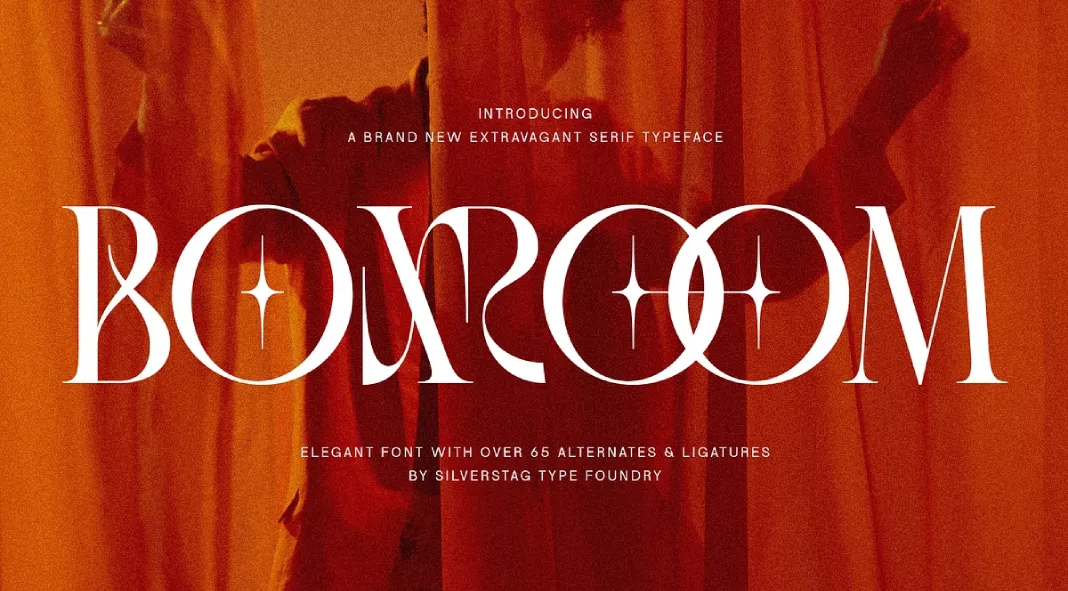
BOXROOM: A Typeface with Character
Designed and published by the SilverStag Type Foundry, BOXROOM isn’t just another typeface; it’s a work of art. BOXROOM presents a fresh take on serif fonts, capturing a blend of vintage charm and modern edge. Its striking design elevates typography to a new level, offering designers a tool that promises sophistication and versatility. From expressive details to adaptable applications, BOXROOM emerges as a powerful asset for any design project.
Design and Aesthetic Appeal
Expressive and Bold BOXROOM commands attention with its extended, angular serifs that exude both elegance and boldness. The meticulously designed decorative elements, especially on letters like O, Q, E, and F, feel like hidden treasures within the font. These tiny adornments transform BOXROOM from a standard serif into a typeface brimming with character and surprise, adding flair and depth to each word.
A Fusion of Classic and Contemporary SilverStag’s BOXROOM straddles two worlds: it hints at vintage typography while maintaining a distinctly modern edge. This duality makes it adaptable to a wide range of design contexts. Whether aiming for a timeless look or pushing the envelope in a contemporary project, BOXROOM delivers a sophisticated aesthetic that remains versatile across applications.
Functional Versatility
Customizable Typographic Experience One of BOXROOM’s standout features is its expansive range of ligatures and alternate characters, totaling over 65 options. This versatility enables designers to craft truly unique typographic treatments by mixing and matching elements, fostering a highly customizable experience. Each ligature and alternate has been thoughtfully crafted, ensuring that readability remains paramount, even in intricate configurations.
Global Language Support BOXROOM’s impressive support for over 400 languages reflects SilverStag’s commitment to accessibility and inclusivity. This extensive language coverage ensures that BOXROOM can be used on projects worldwide, bridging cultural divides while maintaining its visual charm. It’s an ideal typeface for brands looking to resonate with a global audience.
Ideal Applications for BOXROOM
Branding and Logo Design BOXROOM’s boldness and unique decorative features make it a prime candidate for branding projects. It leaves a lasting impression and helps logos stand out, giving brands an identity that’s memorable and full of personality. The font’s balance of sophistication and playfulness ensures it remains professional, while its details make it distinctive.
Editorial and Magazine Design For editorial projects, BOXROOM brings a high level of elegance to titles, headers, and standout text blocks. Its structure and aesthetic enhance readability, while its unique features add interest to magazine spreads and article layouts. Using BOXROOM in editorial design can bring cohesion and elevate the overall visual storytelling.
Packaging and Advertising The decorative qualities of BOXROOM lend themselves perfectly to packaging and advertising. Its details naturally draw the eye, encouraging a second look. Whether on luxury packaging or bold advertising campaigns, BOXROOM amplifies visual appeal, making messages pop in competitive spaces.
Website and Digital Design BOXROOM brings personality to websites, adding a touch of elegance and character. With its readability and unique design features, it engages users, making it an excellent choice for headers and impactful call-to-action statements. This typeface allows brands to convey a specific mood, appealing to users with a strong sense of visual sophistication.
Meticulous Craftsmanship
SilverStag Type Foundry’s attention to detail in BOXROOM is undeniable. Every curve and line has been carefully constructed to create a font that’s not only beautiful but functional. This dedication to craftsmanship makes BOXROOM a pleasure to work with, ensuring clarity and aesthetic appeal across sizes and mediums.
A Typeface for the Bold and Creative
The SLTF BOXROOM font is an invitation to break from the norm and create something remarkable. With its expressive details, global accessibility, and versatility, BOXROOM empowers designers to make bold statements and infuse creativity into their projects. For those seeking a font that’s as unique as it is adaptable, BOXROOM by SilverStag Type Foundry is a top contender.